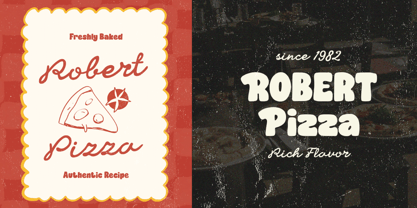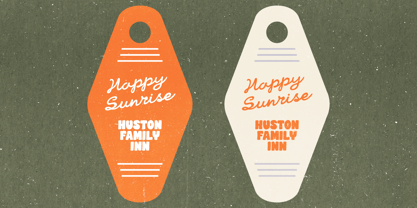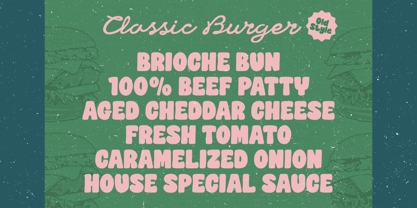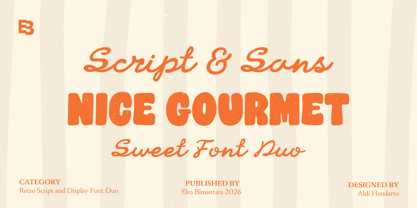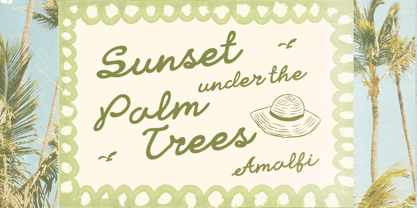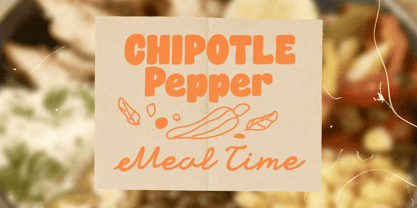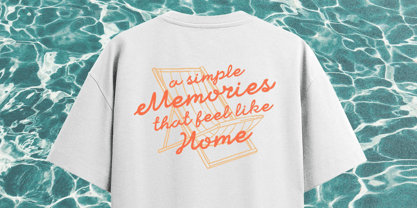
Nice Gourmet
Nice Gourmet is a charming font duo that blends a smooth handwritten script with a bold, rounded sans serif, creating a perfect balance between elegance and playfulness. The script style delivers a sweet, friendly, and personal touch, while the sans serif brings strong readability and visual impact. Together, they form a harmonious pairing ideal for eye-catching headlines and expressive branding. Designed with a warm and appetizing personality, Nice Gourmet is especially suitable for food and beverage branding, café menus, packaging, logo designs, posters, social media graphics, and lifestyle products. Its soft curves and cheerful character make it feel inviting and modern, while still maintaining a professional finish. Whether used separately or as a duo, Nice Gourmet helps your designs look delicious, fun, and full of personality.